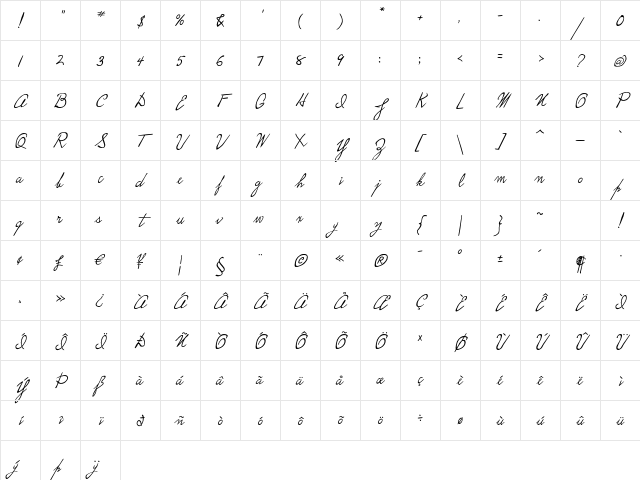
P22Hopper Edward Free Font
P22Hopper Edward
Style: Edward
P22Hopper Family
Design Context for P22Hopper
P22Hopper is a composed and adaptable typeface that performs quietly and consistently across a wide range of design contexts.